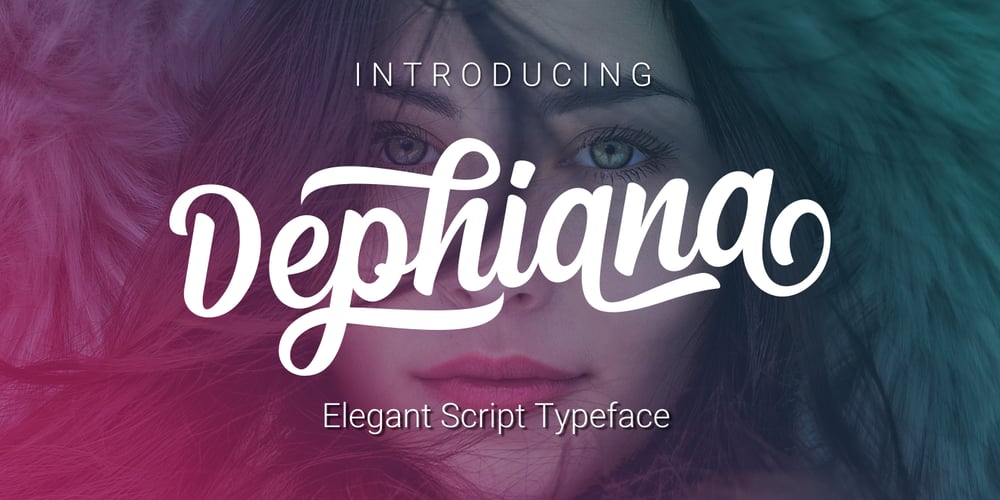
Dephiana
Dephiana font
Dephiana Font Family was designed by Nur Faidin and published by Nurf Designs. Dephiana contains 1 styles and family package options. Dephiana is an elegant and bold stylish script font. Great for logos, wordmarks & signboard. Has several stylistic alternates that can be used as needed.